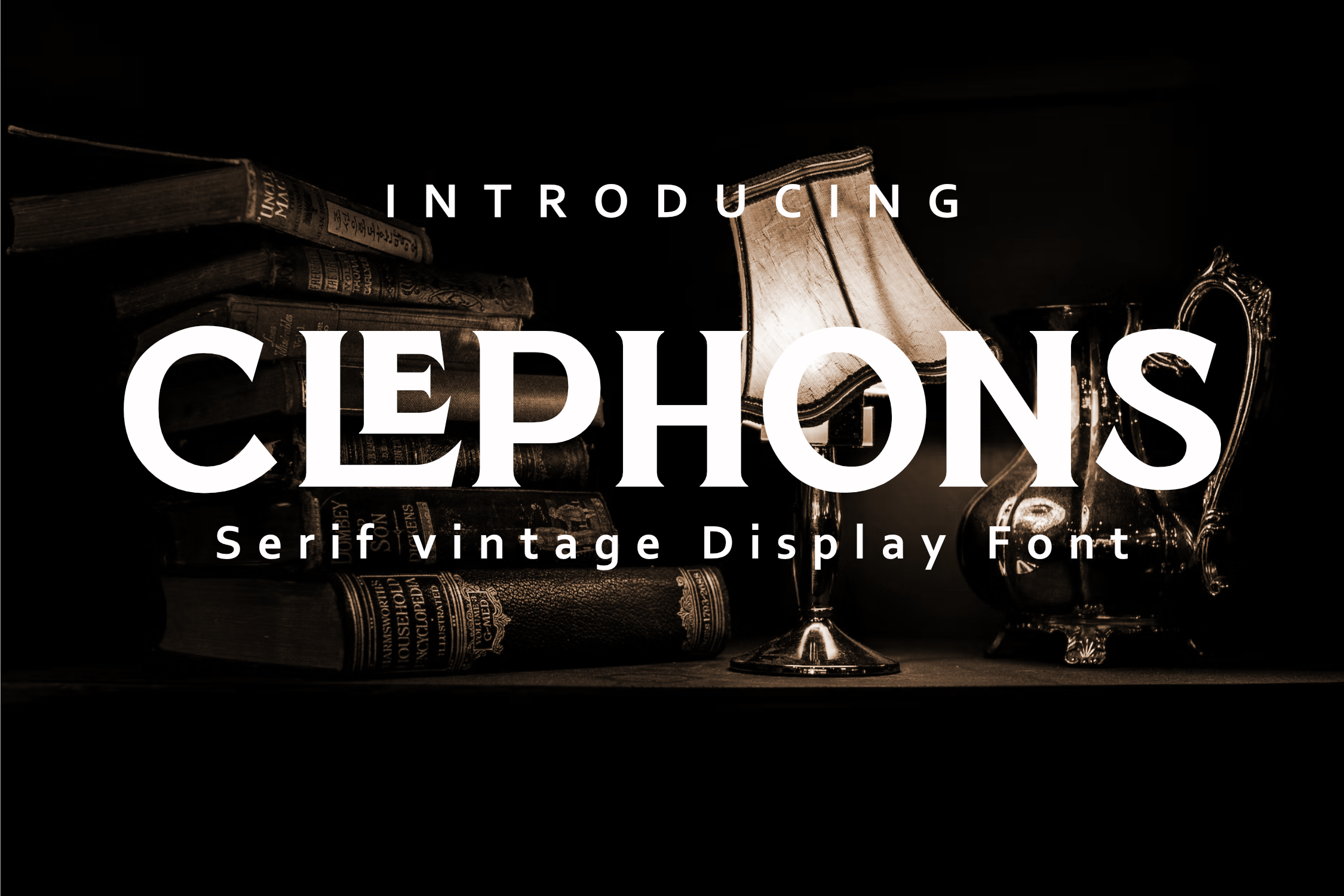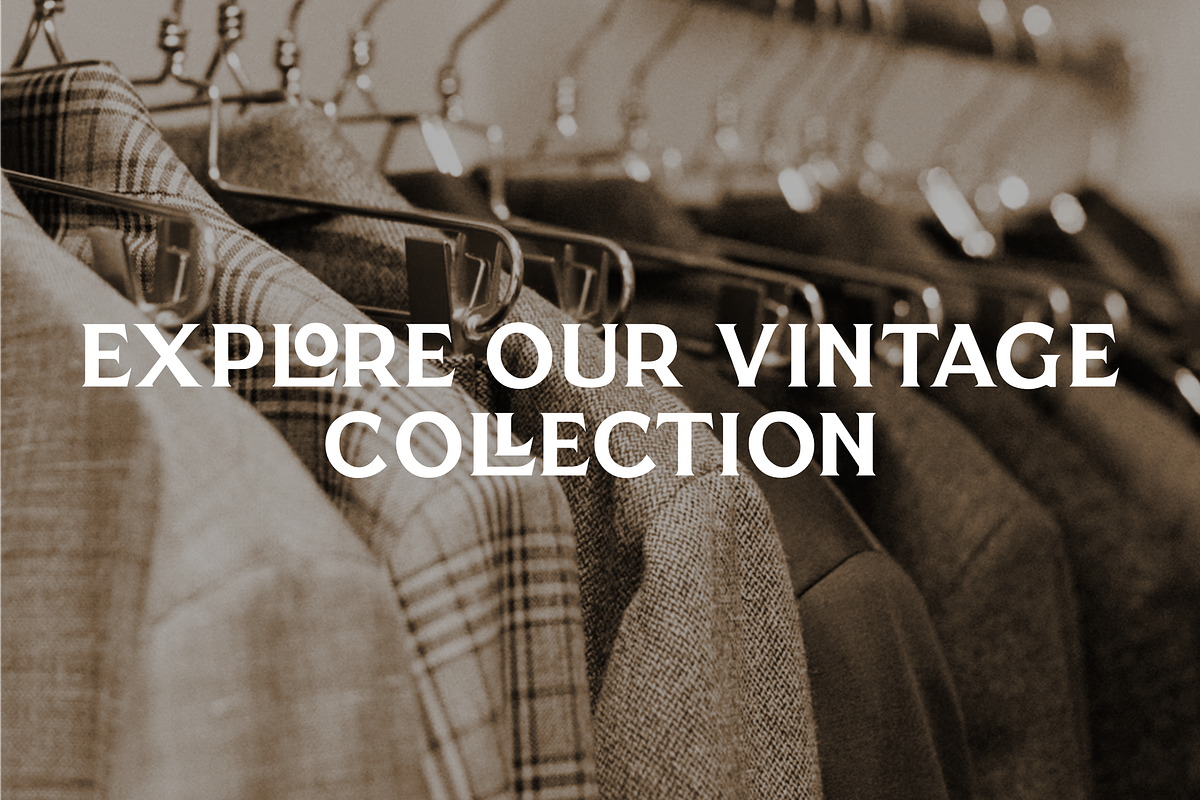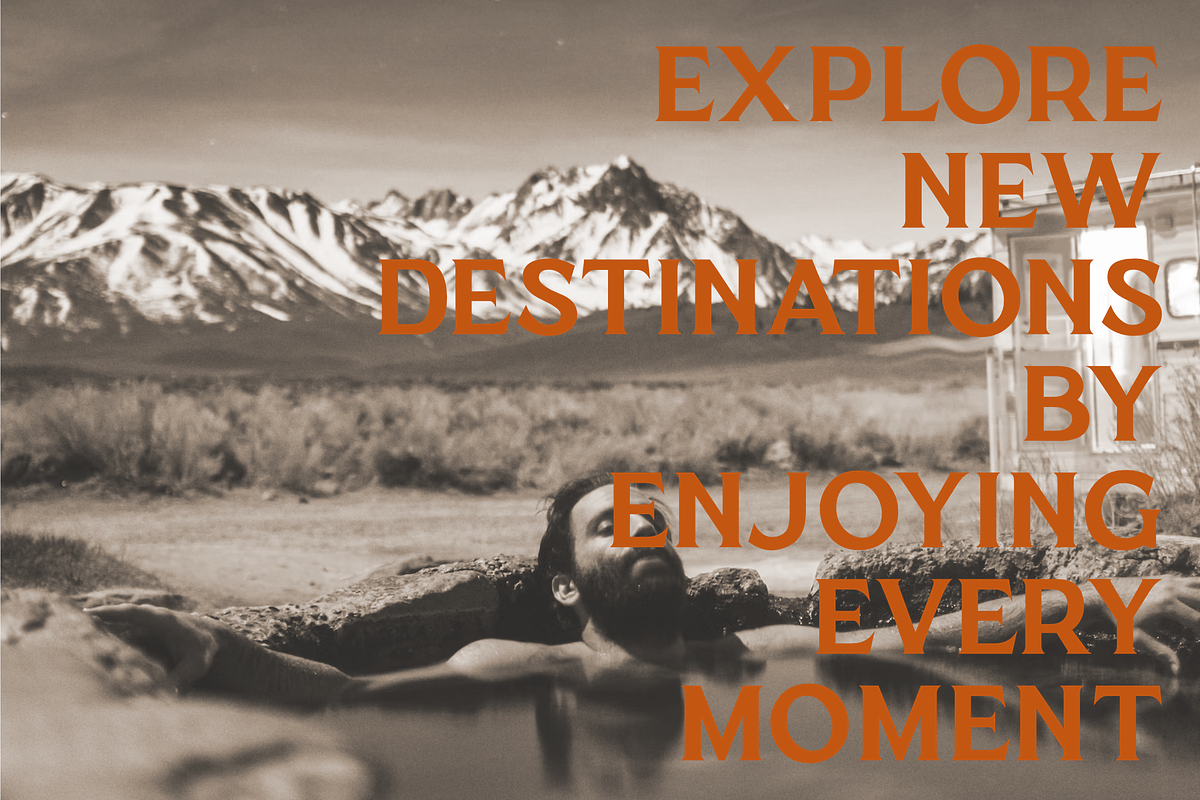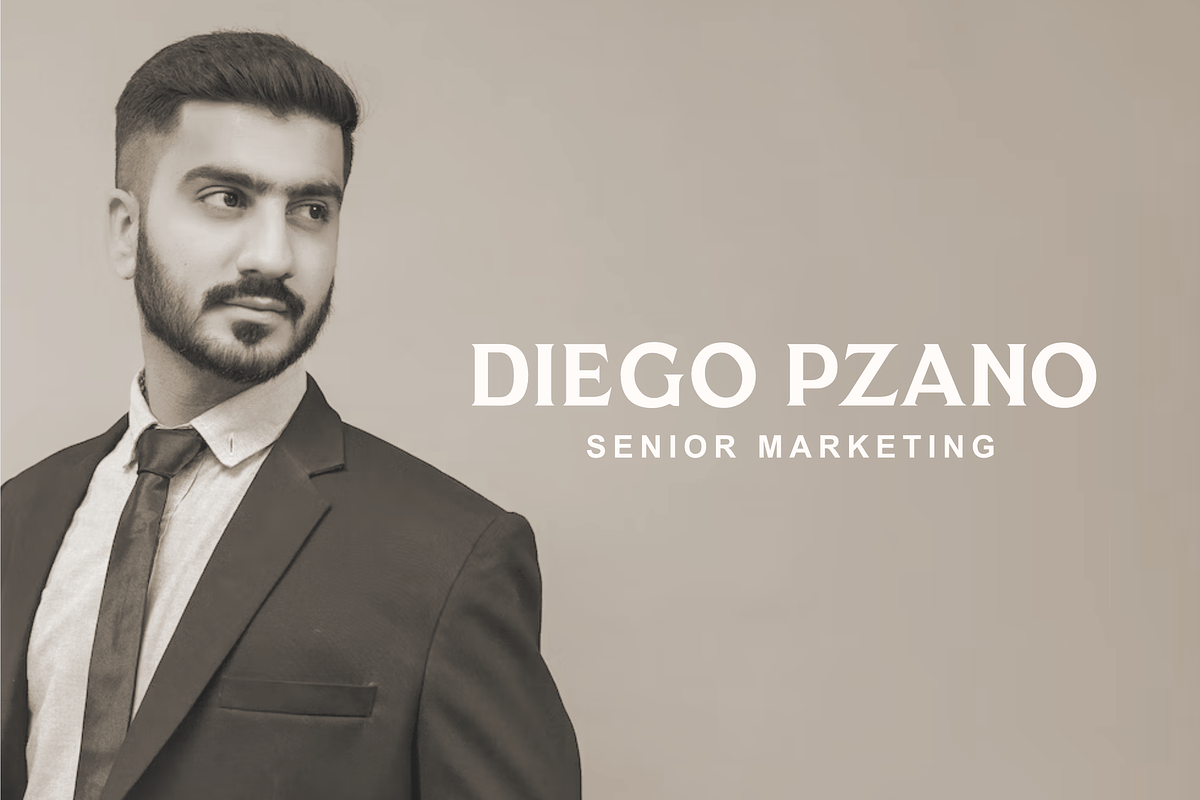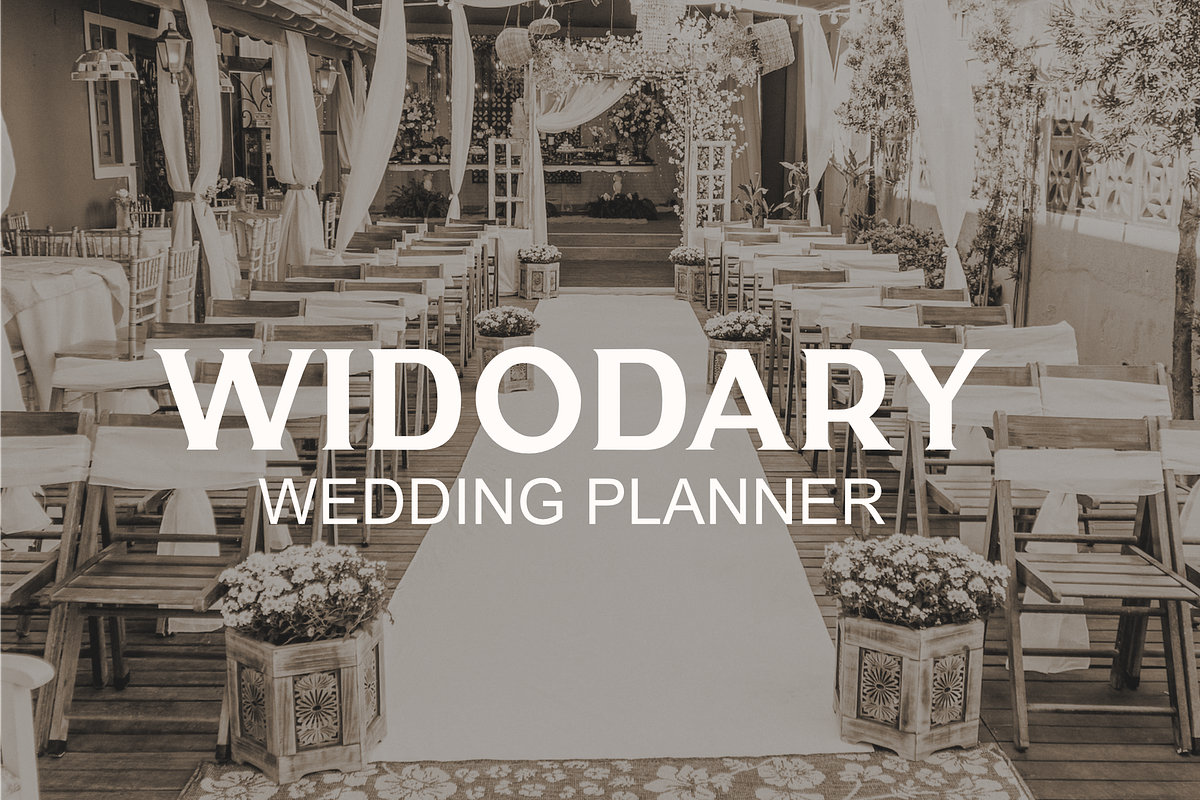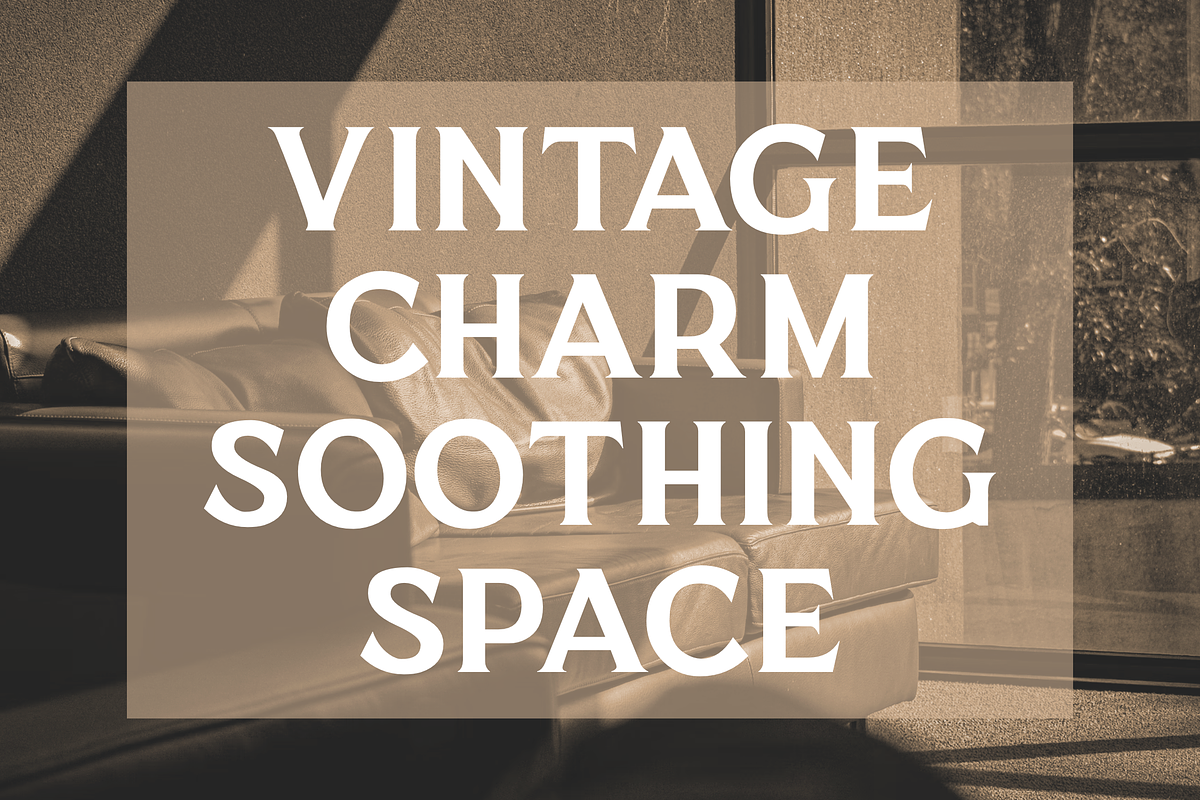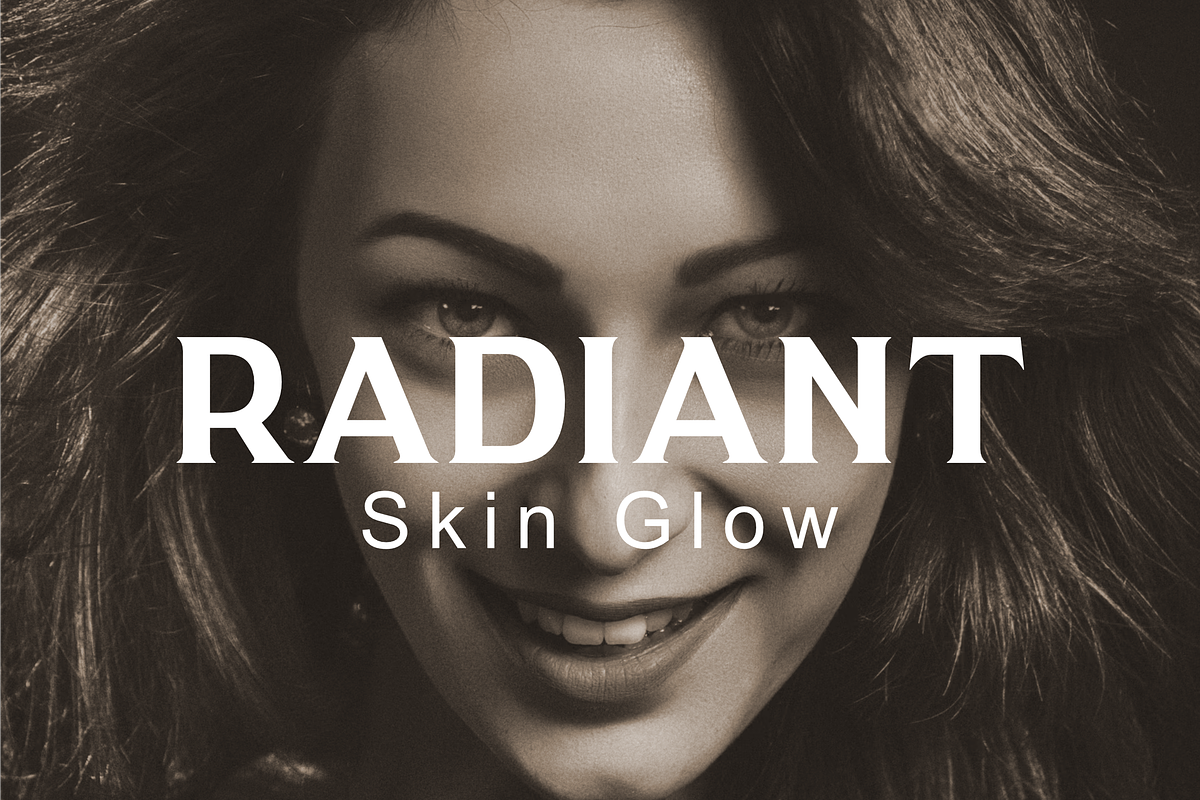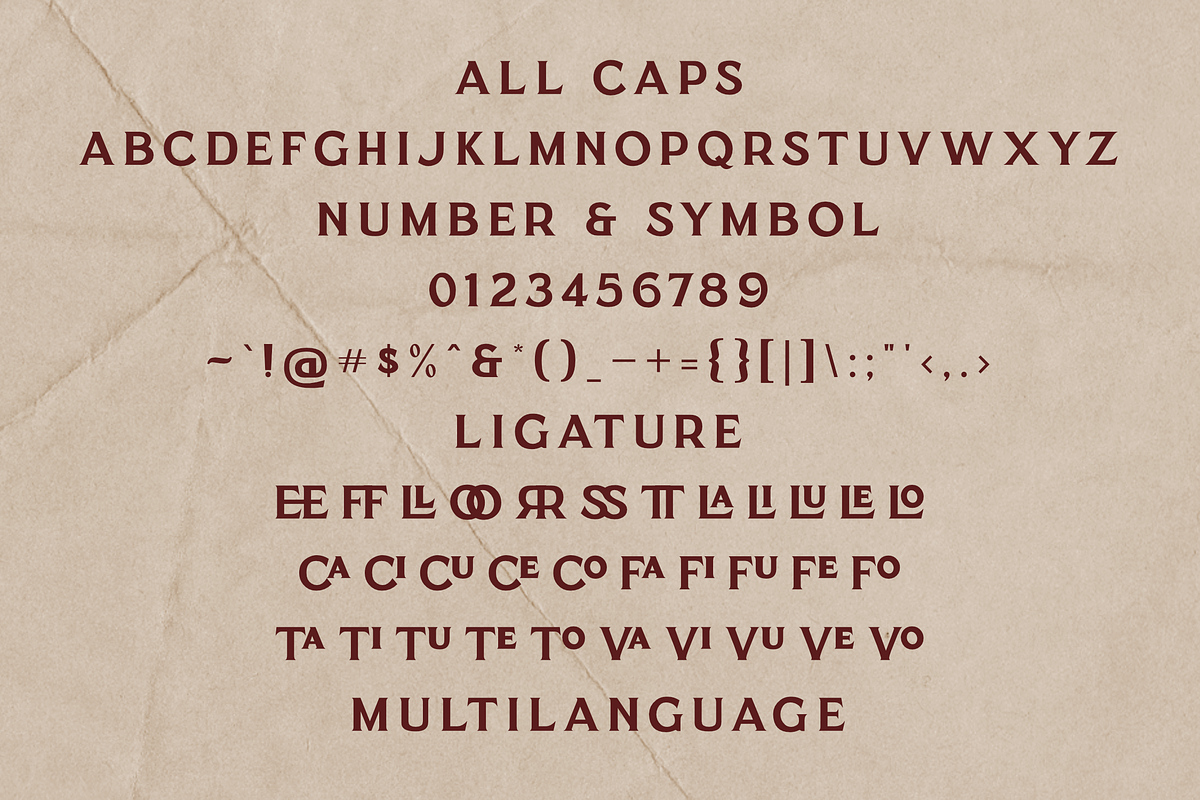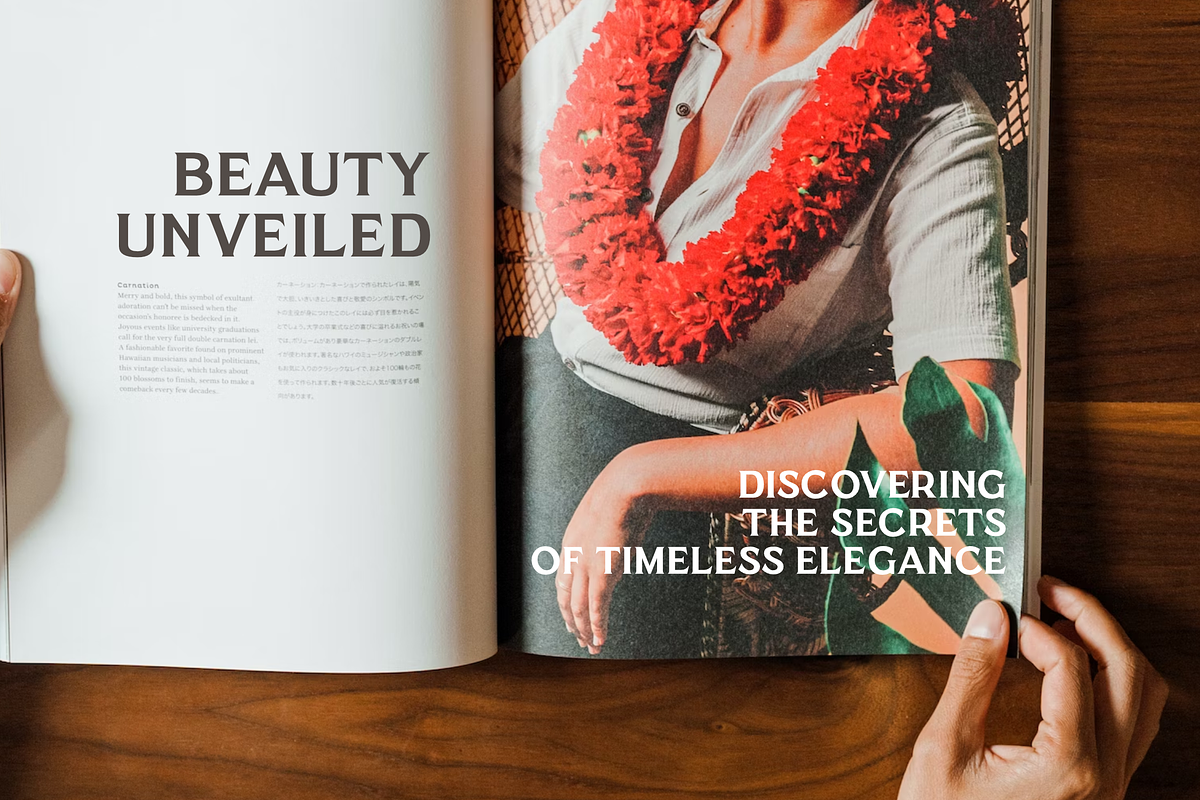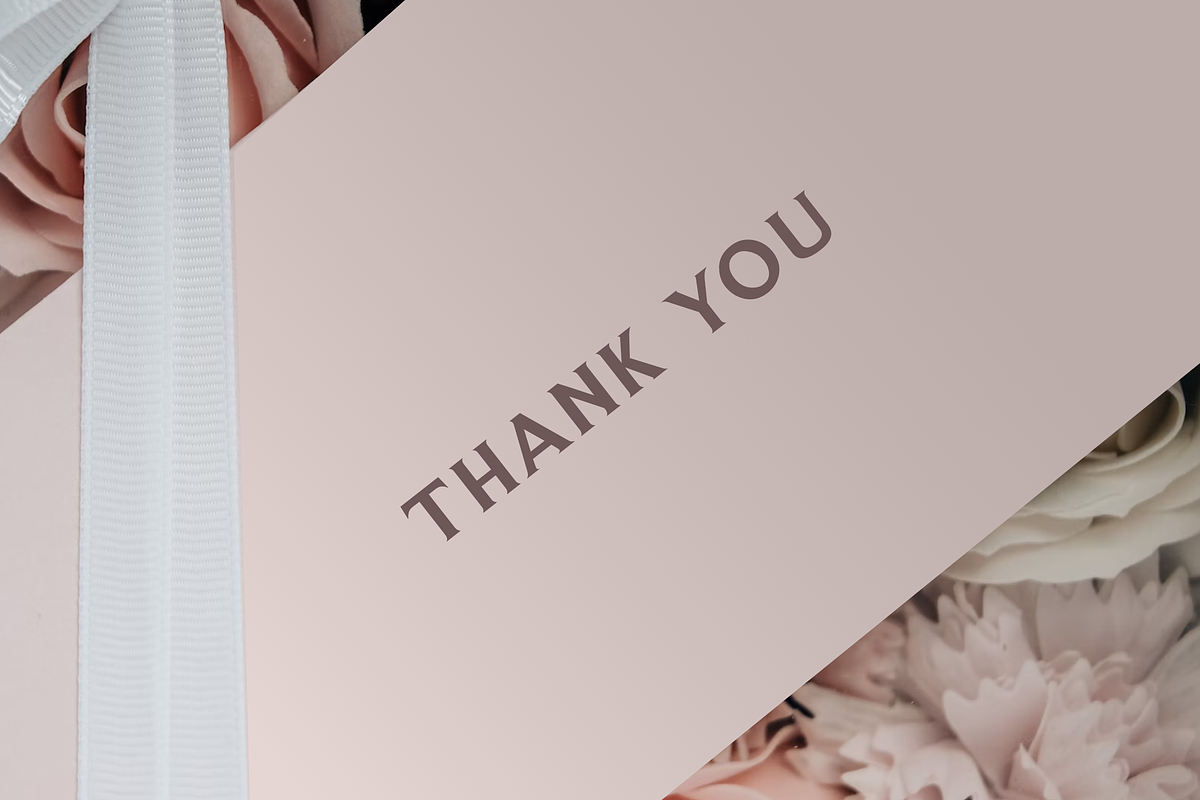
Clephons -Vintage Serif Display Font
Introducing, Clephons is a captivating serif display font that exudes timeless elegance. Crafted as an all-capital typeface, this font is a homage to vintage letterforms, blending classic charm with a touch of modern sophistication. Perfectly tailored for branding, headlines, logos, and designs with a classic or vintage theme, Clephons effortlessly captures the essence of a bygone era. Its distinctive serifs and refined details make it a versatile choice for projects that demand a touch of retro flair. Elevate your designs with Clephons, where every character tells a story of refined aesthetics and enduring style. Inclouded : • All Caps • Numeral • Ligature • OTF/TTF/WOFF • Multilanguage